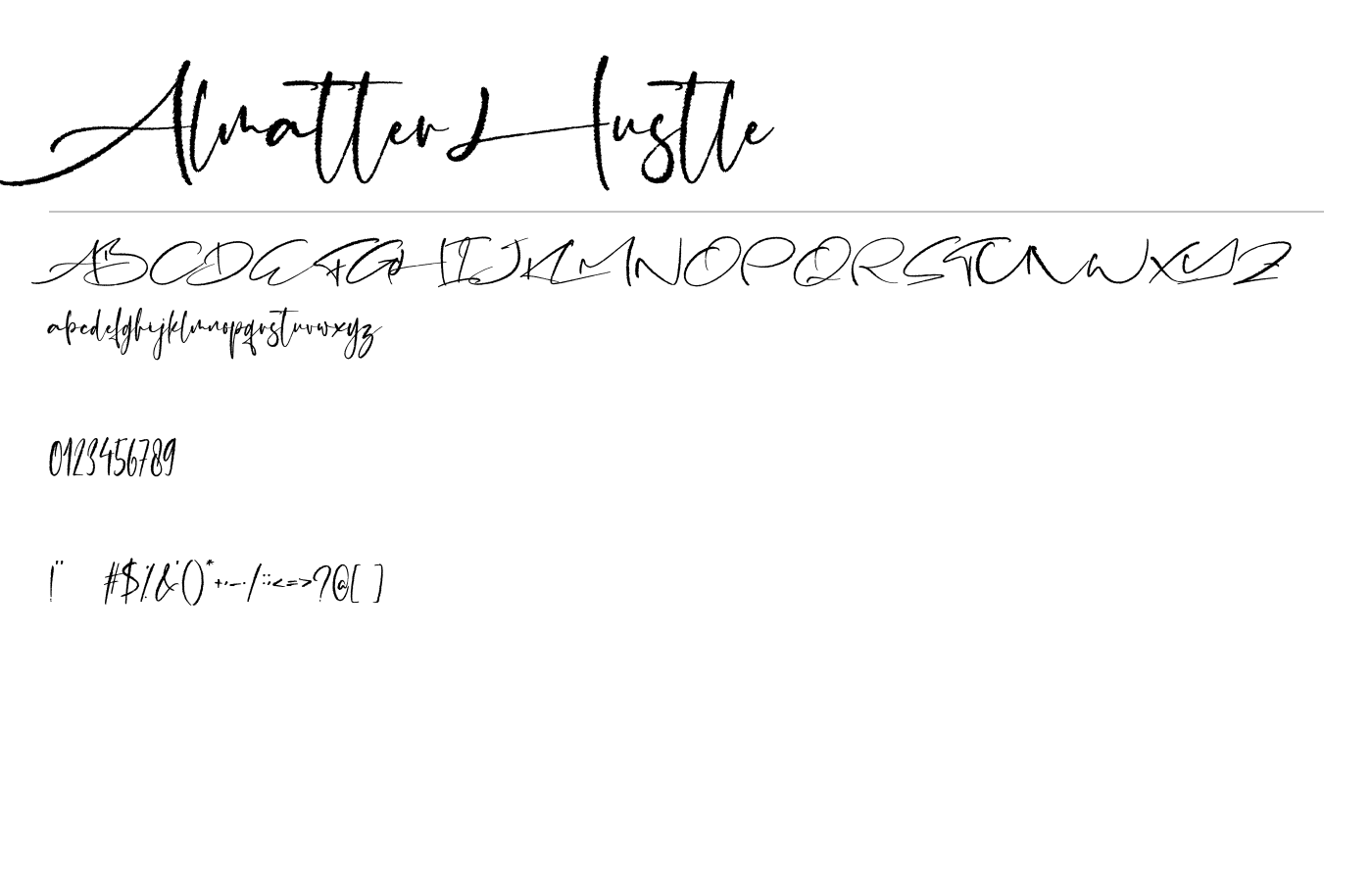
Almatter Hustle is a delicate and expressive handwritten script font featuring slender, fluid strokes that create an elegant yet energetic feel. Its casual, modern style with tall, narrow letterforms and playful loops makes it perfect for creative branding, invitations, and lifestyle projects that seek a personal, artistic touch. This font adds a sense of individuality and charm, ideal for fashion, beauty, or boutique designs where a stylish, hand-crafted appearance is desired.
Almatter Hustle Font